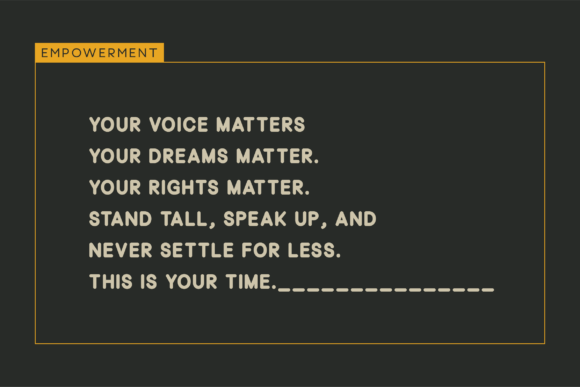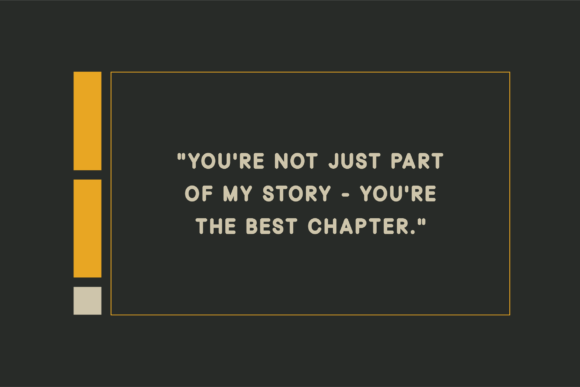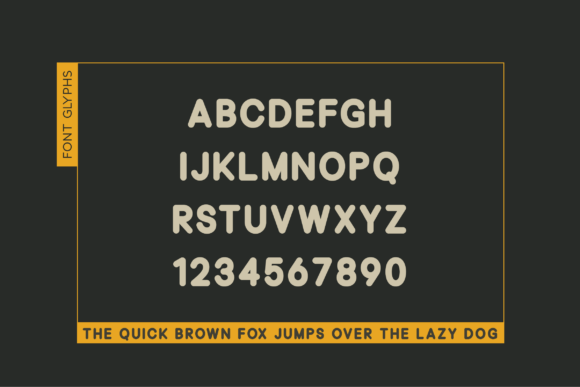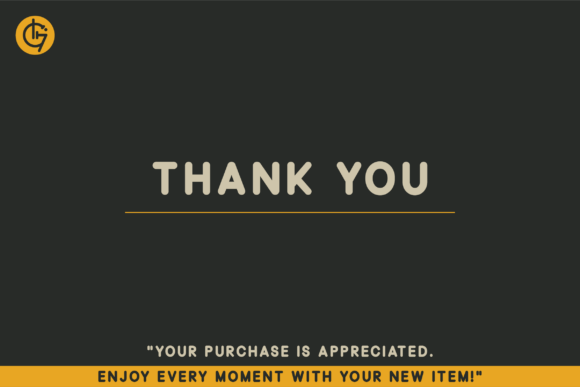
Introduction to Mokebook Font
Have you ever sat down with a blank canvas, a blank page, or a blank screen, eager to unleash your creativity? The blank slate can be both exhilarating and intimidating. For designers, finding the perfect font can make all the difference between a lackluster and a captivating creative project. That’s where the Mokebook Font comes in – a game-changing addition to your design arsenal.
As a free download, this high-quality font is a treasure trove of creative possibilities. With its all-caps design, fluidity, and versatility, Mokebook Font is the perfect companion for your crafting adventures. From social media posts to t-shirts, stickers, greeting cards, and event invites, this font is the ideal design resource for making a lasting impression.
Whether you’re a seasoned designer or a creative enthusiast, Mokebook Font is an invaluable addition to your toolkit. With its transparent background and extensive character set, you’ll be able to bring your ideas to life with ease and style. Get ready to elevate your creative voice with the Mokebook Font – a true partner in design excellence.
Key Features of Mokebook Font
- High-quality, unique design ideal for creative projects and artistic expressions
- Features a transparent background, allowing for versatile use in a range of design applications and backgrounds
- Designed with a modern aesthetic, making it a valuable design resource for contemporary creative projects
- Perfect for use in digital art, graphic design, and other creative pursuits where a distinctive and eye-catching font is desired
Honest Review: Mokebook Font
I recently had the opportunity to work with the Mokebook Font, and I must say it’s been a game-changer for my creative project. The free download was a nice bonus, and the high-quality design really shines through.
- What works well: ✨ The Mokebook Font is incredibly versatile and can be used in a variety of settings, from digital to print. The transparent background makes it easy to integrate with any design resource.
- What works well: ✨ The font’s unique style and modern aesthetic make it perfect for a wide range of creative projects.
- ⚠️ The font may not be suitable for all types of projects, particularly those requiring a more traditional or formal tone.
- ⚠️ Some users may find the font’s unique style to be a bit too trendy or over-the-top.
Overall, I’m really impressed with the Mokebook Font. It’s a high-quality design resource that’s perfect for creative projects. While it may not be for everyone, it’s definitely worth checking out if you’re looking for a unique and modern font.
Mokebook Font is a free download, high-quality font perfect for creative projects. Its transparent background makes it ideal for various design resources.
Mokebook Font is ideal for:
1. Creative projects, such as posters, flyers, and brochures.
2. Design resources, such as logos, icons, and graphics.
3. Digital marketing materials, such as social media posts and email newsletters.
Does the Mokebook Font include a transparent background, or is it a solid color?
The Mokebook Font includes a transparent background, making it easy to use in various design applications and allowing designers to layer the font over different backgrounds. This feature makes the font a versatile design resource for designers working on creative projects that require a high level of customization and flexibility.